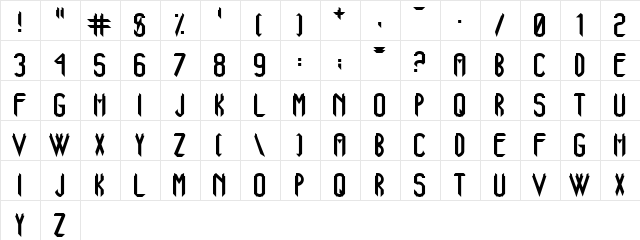
Xanadu Regular
Design Context for Xanadu Typeface
Xanadu offers clean, dependable letterforms without strong stylistic allegiance, making it a practical choice for designers who need flexibility.
Pro Tip: Use Xanadu in both headline and body roles to test its range before committing to a single application.